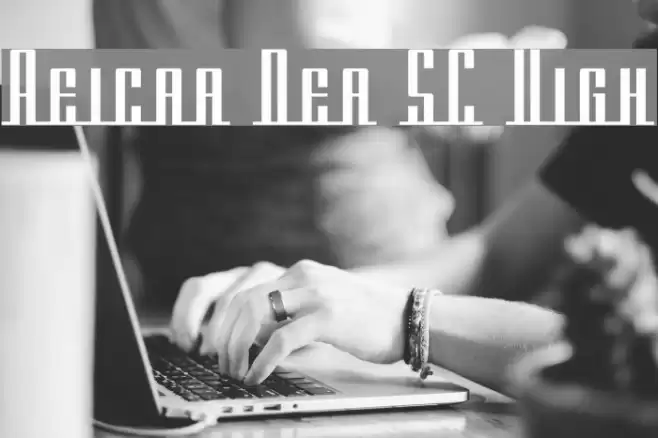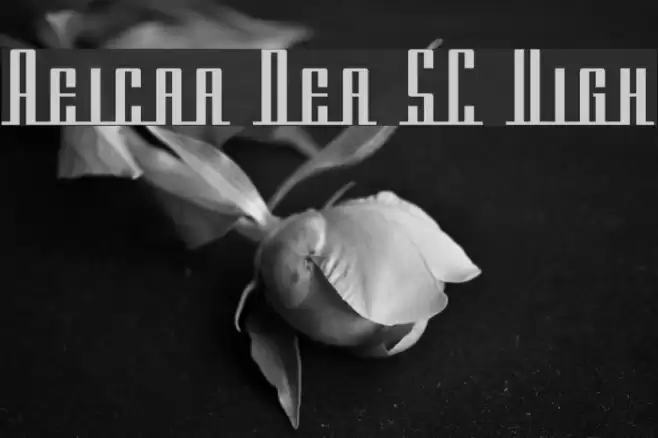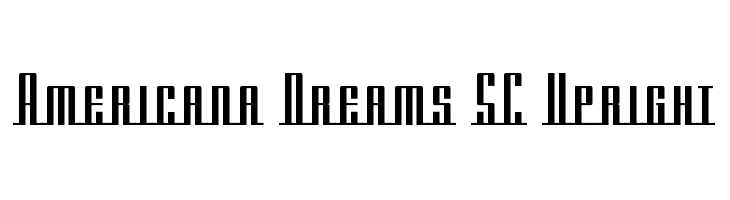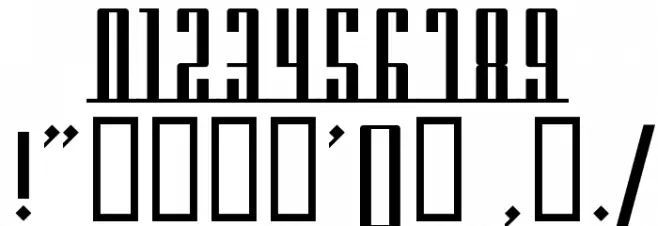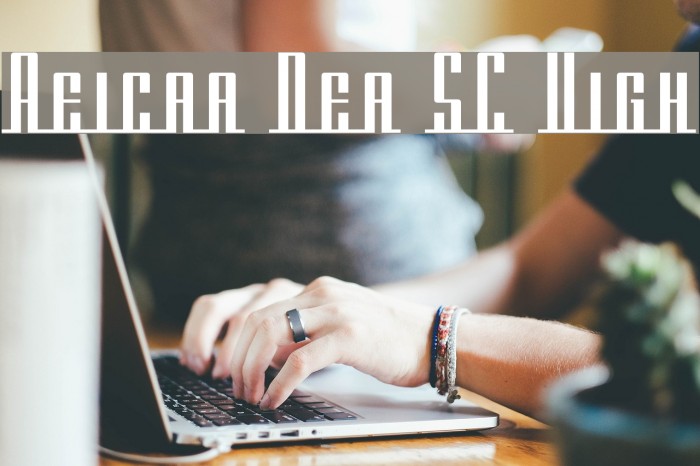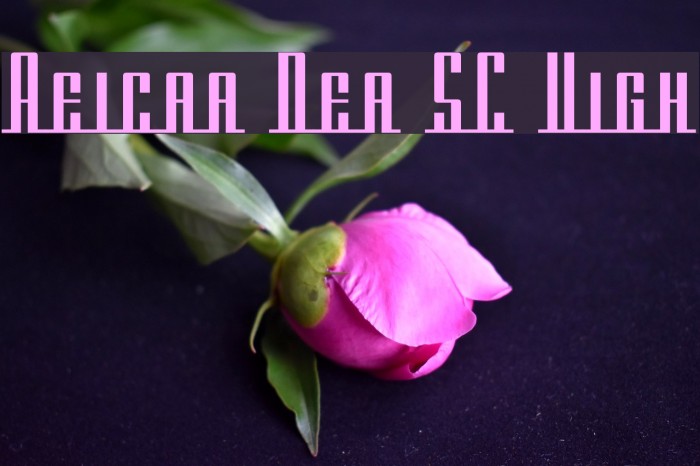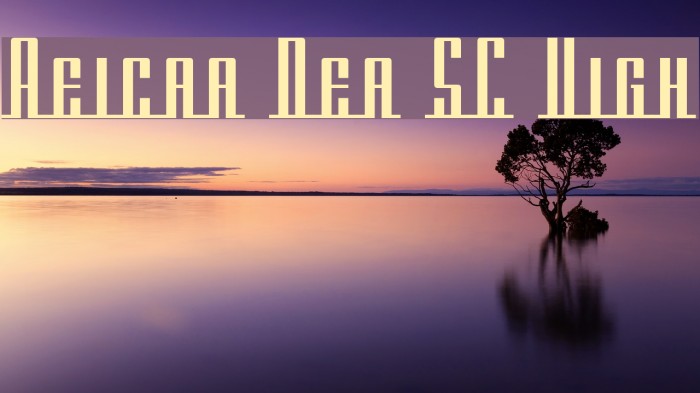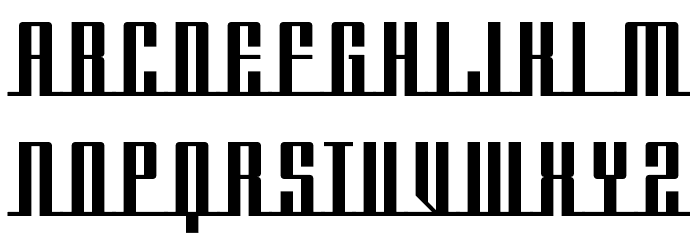
Americana Dreams SC Upright Font
Americana Dreams SC Upright Description
This font features a bold, geometric design with a distinct Art Deco influence. The characters are tall and narrow, with sharp angles and clean lines that create a striking visual impact. The uppercase letters are particularly elongated, giving the font a sense of elegance and sophistication. The numbers and special characters maintain the same geometric style, ensuring consistency across all elements. The font's unique style makes it ideal for creating eye-catching headlines or logos that require a touch of vintage flair.
A bold, geometric font with Art Deco influences, ideal for striking headlines from Decorative fonts.
- Proposed Projects: This font is perfect for projects that require a vintage or retro aesthetic, such as branding for luxury products, event posters, or editorial design. It can also be used effectively in logo design to convey elegance and sophistication.
- Overall Style: Vintage